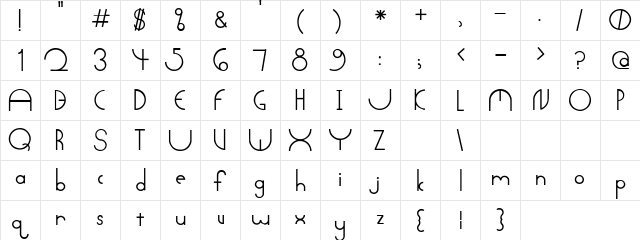
Chunky Munky Regular Font Preview
Chunky Munky Regular
Chunky Munky Regular Font Details
Design Context for Chunky Munky Typeface
Chunky Munky takes a measured approach to typography — its balanced proportions and neutral character make it a reliable workhorse for both digital and print work.
Pro Tip: Use Chunky Munky in both headline and body roles to test its range before committing to a single application.